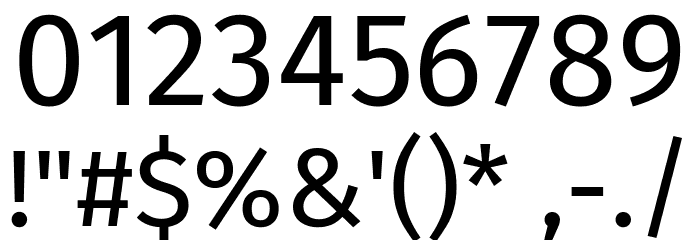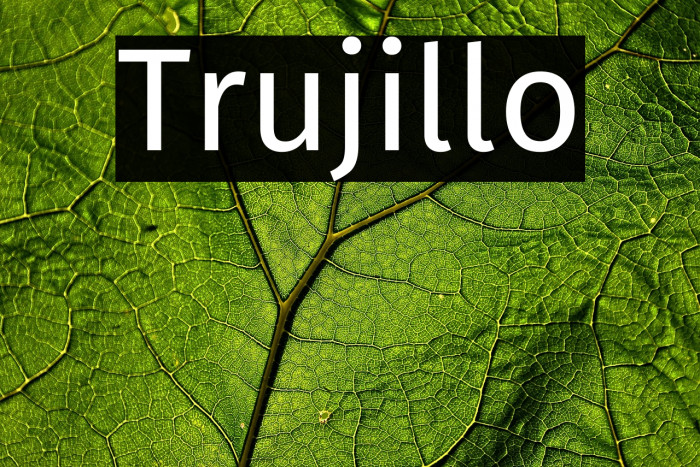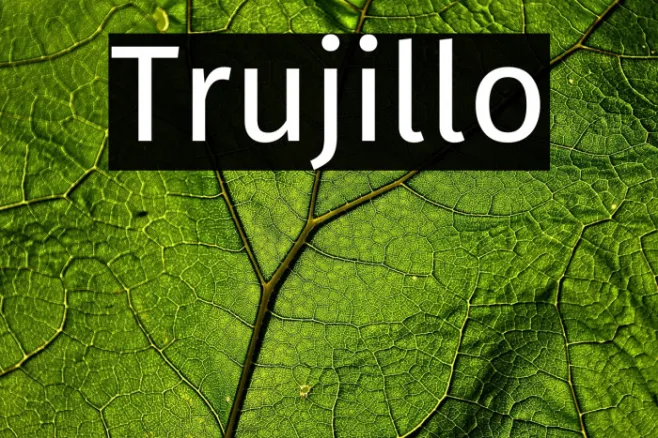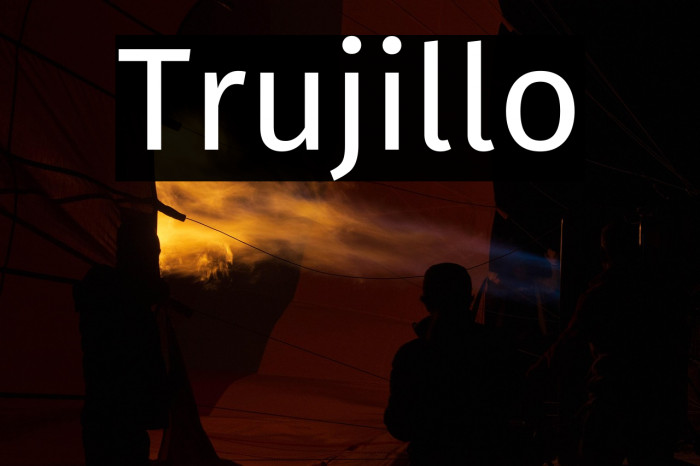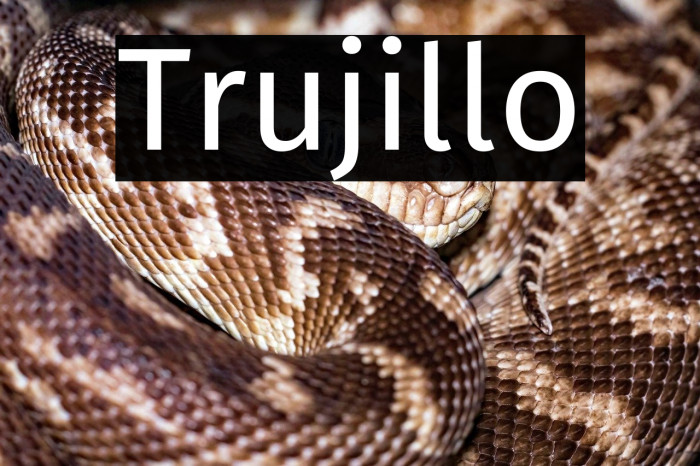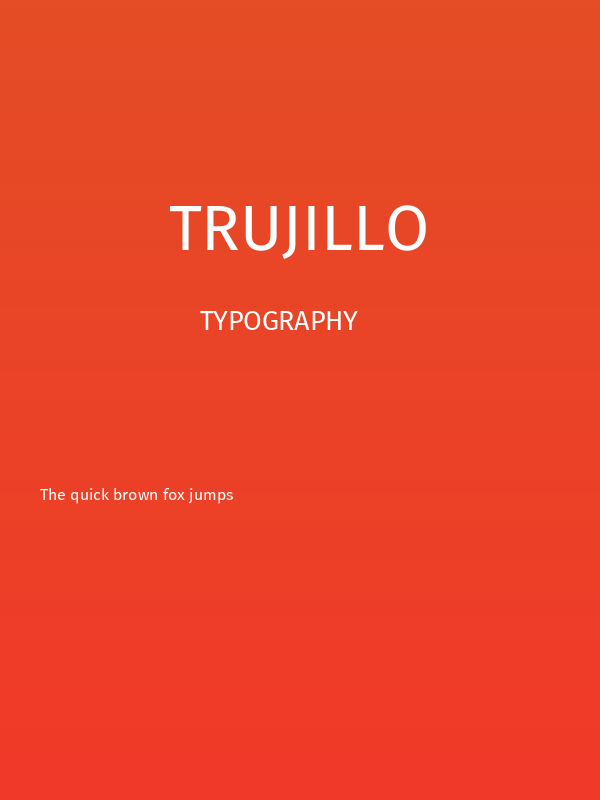
Trujillo Font
Trujillo Description
This font features a clean and modern sans-serif style with uniform stroke widths, giving it a sleek and professional appearance. The characters are well-proportioned, with a slightly condensed structure that enhances readability while maintaining a compact form. The uppercase letters are bold and assertive, while the lowercase letters offer a softer, more approachable feel. The numerals are clear and distinct, making them ideal for both digital and print applications. The special characters are designed with the same attention to detail, ensuring consistency across all glyphs.
| Proposed Projects | Ideal for corporate branding, digital interfaces, editorial design, and signage. |